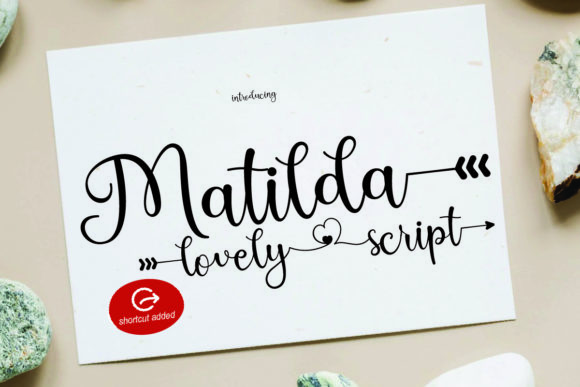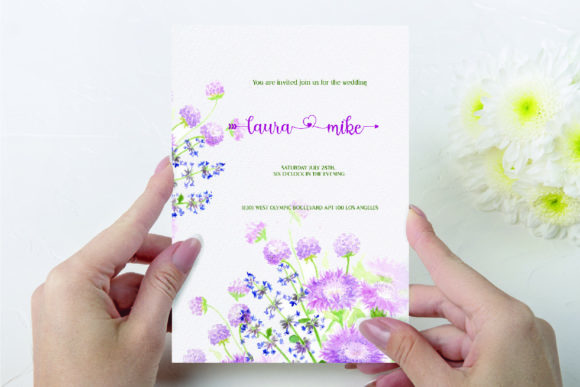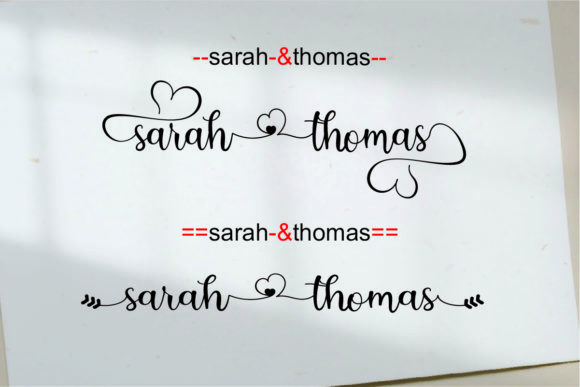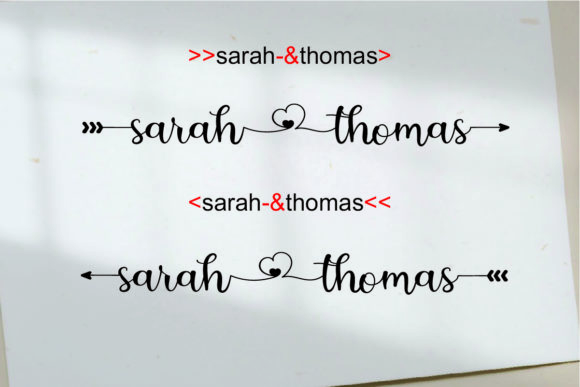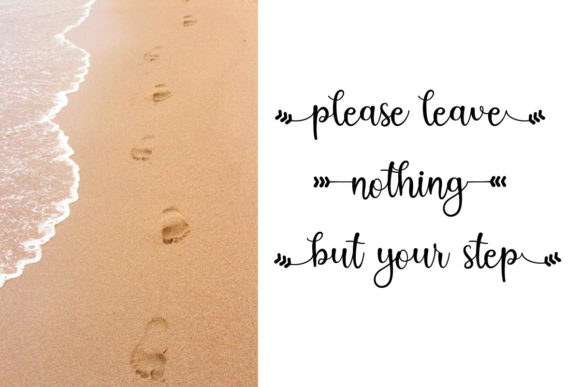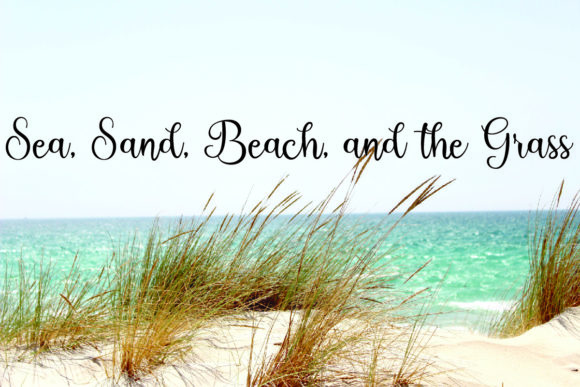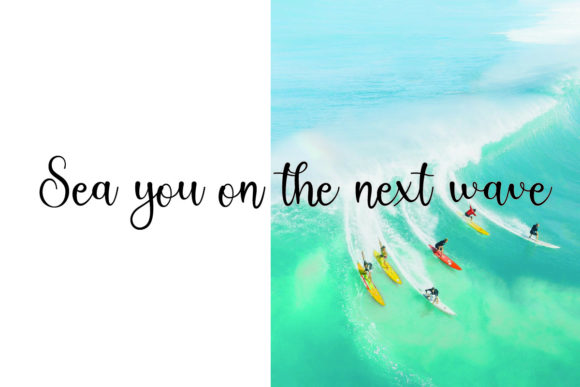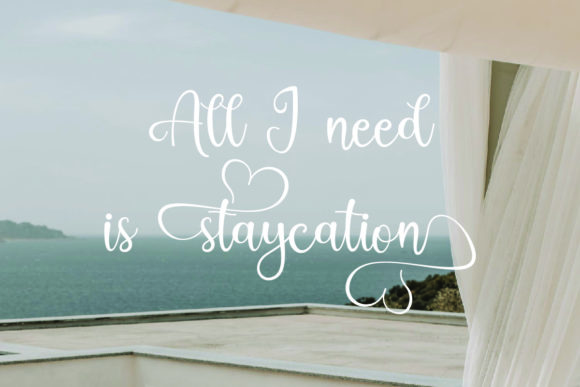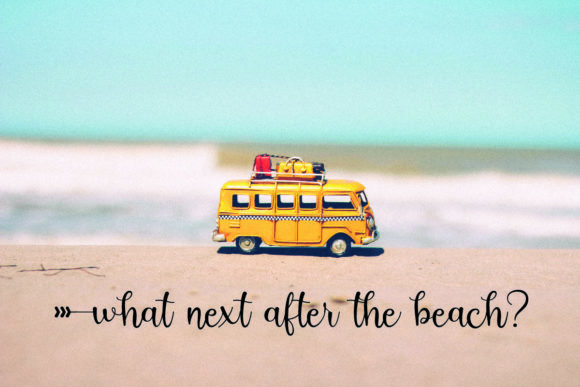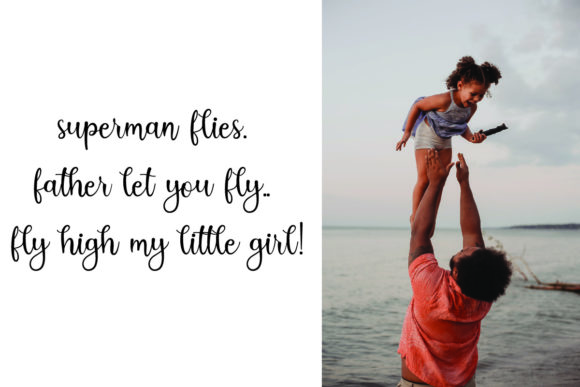
Mathilda Script Font
About Mathilda Script Font
“Mathilda” is a romantic and airy script font featuring a range of unique swashes. Infuse this font with confidence into your projects, and you’ll be delighted by the outcome. With its PUA encoding, accessing all the glyphs and swashes is effortless, providing you with creative freedom.
The font’s romantic and light appearance brings a sense of elegance and grace to your designs. Whether you’re creating wedding invitations, branding materials, posters, or any other project that requires a touch of romance, “Mathilda” has the ability to enhance your work with its delicate and artistically crafted aesthetic.
The inclusion of various unique swashes adds an extra layer of customization and charm to the font. This feature enables you to add decorative elements and flourishes, elevating your designs to new levels of sophistication.
In essence, “Mathilda” is more than just a font—it’s a creative tool that enhances your ideas with its romantic and airy script style. Its versatility and accessibility to a variety of glyphs and swashes make it a valuable asset for designers aiming to create visually enchanting and aesthetically pleasing designs that leave a lasting impression.